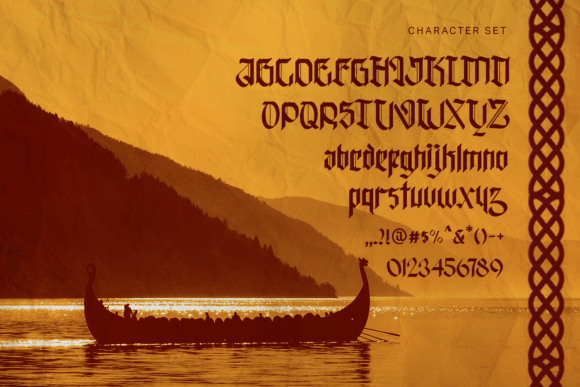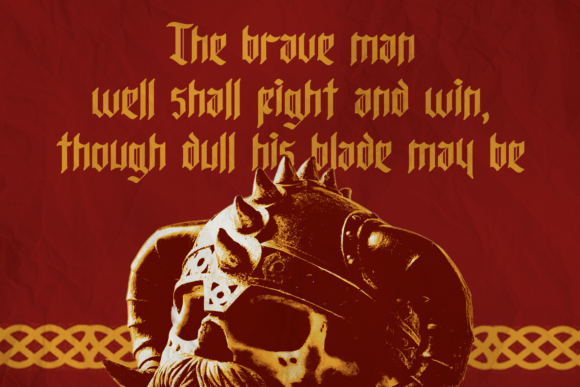
Introduction to Odgar Blackletter Font Font
Fonts play a crucial role in design, and the Odgar Blackletter Font font is a typeface that brings both character and versatility to any project. Whether you’re working on a branding project, a website, or a print design, the Odgar Blackletter Font font offers a unique style that can elevate your work.
This Blackletter typeface is inspired by Viking heritage and Norse mythology, capturing the spirit of strength, honor, and ancient warfare.
Built with bold strokes, sharp angles, and classic medieval proportions, this font delivers a powerful and heroic presence Ideal for Viking-themed designs, fantasy projects, historical artwork, logos, posters, games, films, album covers, and epic branding, this typeface embodies the legacy of warriors and legends of the North.
Key Features of Odgar Blackletter Font Font
Why Choose Odgar Blackletter Font Font?
The Odgar Blackletter Font font is more than just a typeface – it’s a design tool that helps you communicate your message with style and clarity. Its unique character set and versatile design make it suitable for a wide range of applications, from elegant invitations to bold headlines.
With its carefully crafted letterforms and balanced proportions, the Odgar Blackletter Font font ensures readability and visual appeal across all mediums.
What makes Odgar Blackletter Font font special?
The Odgar Blackletter Font font stands out with its unique design, exceptional readability, and versatility across various design applications.